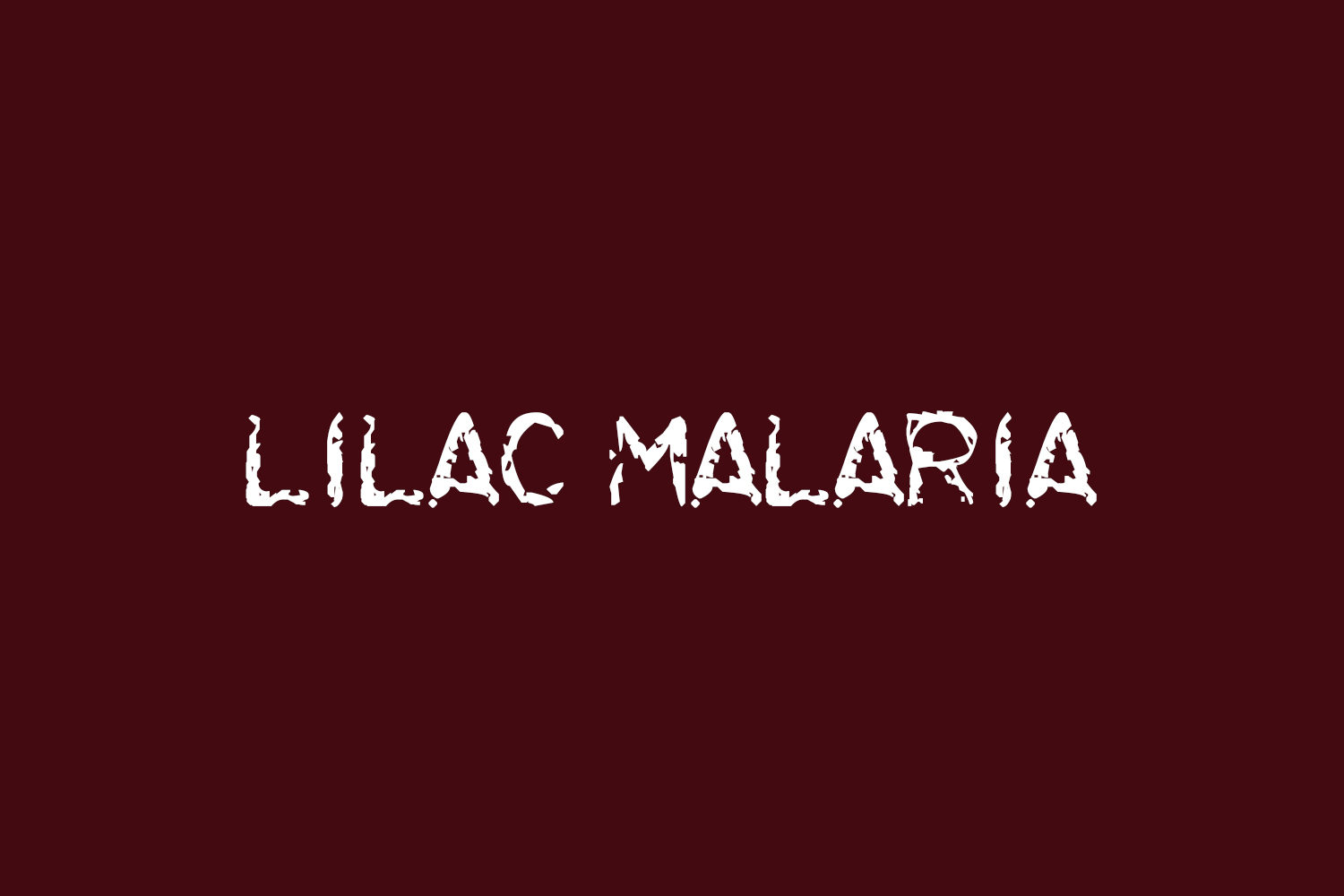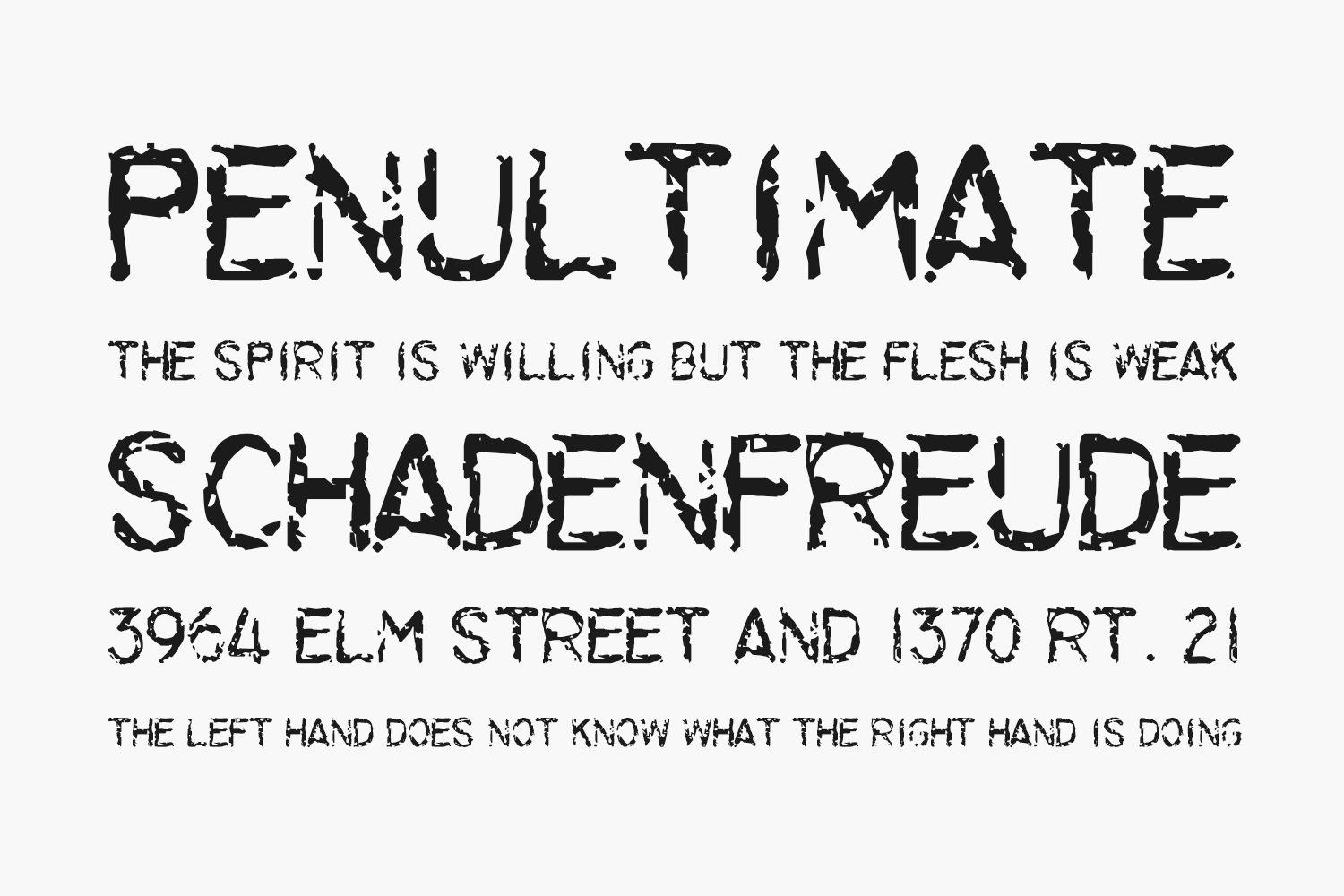
Looking emaciated and fragile, Lilac Malaria Free Font doesn’t seem to be shouting for attention; a subtle, understated ‘grunge’ font.
Designed by Vic Fieger